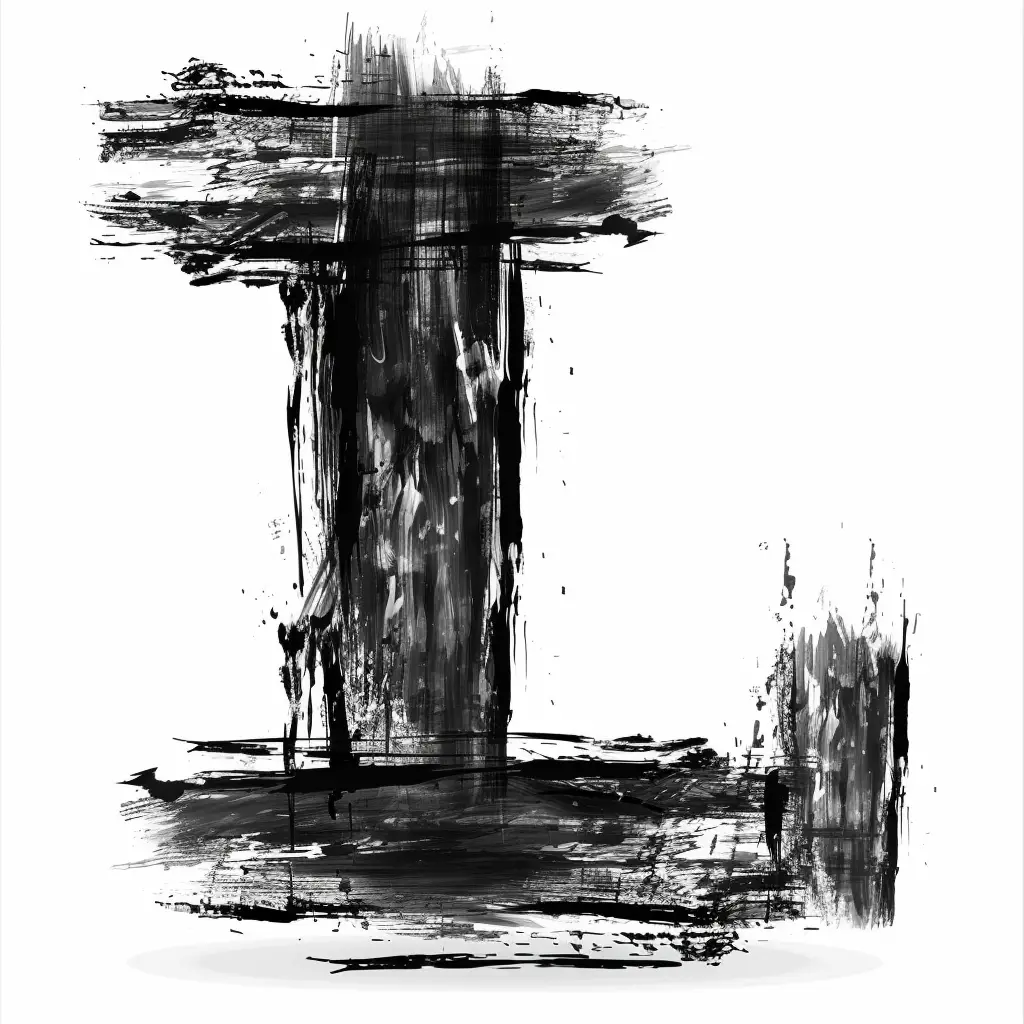
This abstract artwork features a bold, vertical black brushstroke structure resembling a stylized letter "T," with rough, textured strokes and splatters. The monochromatic palette of black and white emphasizes the dynamic, expressive style, while subtle details like drips and layered marks add depth and movement.